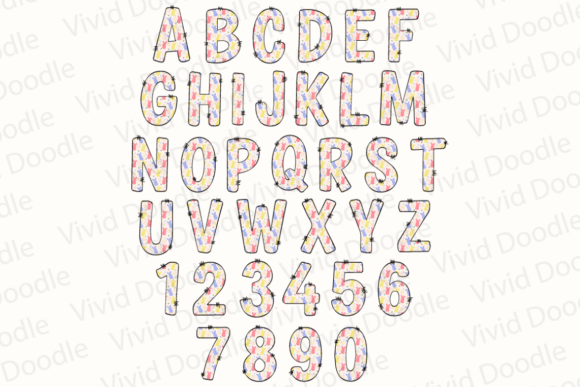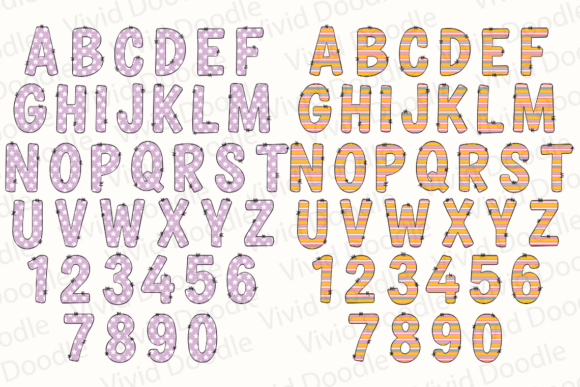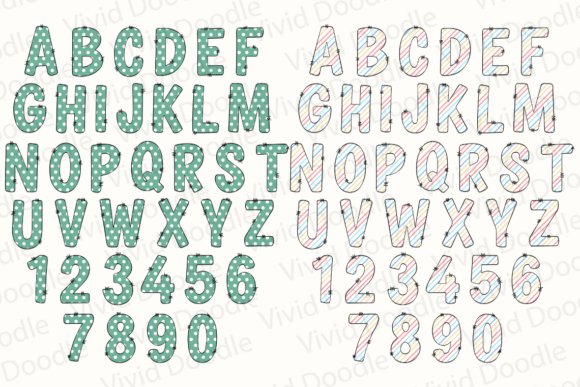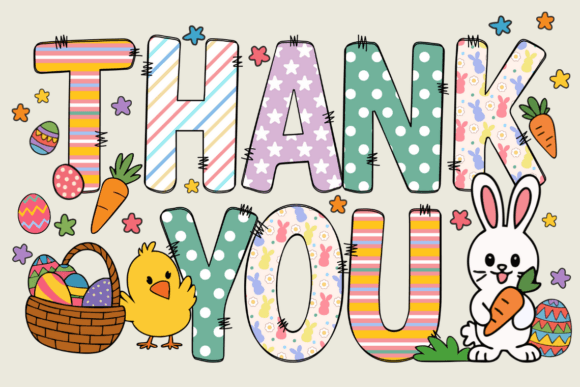
Hop into the Season with Bunny Easter Font
I’ll never forget the time I was working on an Easter-themed project for a client, and I just couldn’t find the right font to capture the playful, festive spirit of the holiday. I scoured the internet, tried out dozens of fonts, but nothing seemed quite right. That was until I stumbled upon Bunny Easter Font. It’s been a game-changer for my holiday designs ever since! 🎉
A Delightful Addition to Your Easter Designs
Bunny Easter Font is an adorable and festive typeface that brings the charm of spring and Easter to life. With its playful and whimsical style, this font is perfect for adding a delightful touch to all your seasonal designs. Whether you’re working on Easter-themed projects such as holiday cards, party invitations, festive posters, or DIY crafts, this font is sure to impress.
What I Love About Bunny Easter Font
• ✨ Playful and whimsical design that’s perfect for Easter-themed projects
• ✅ Adorable bunny-inspired details that capture the joy of the season
• 📚 OpenType features, glyphs, and stylistic alternates for added creativity
While Bunny Easter Font is an amazing addition to any Easter design, there are a few things to keep in mind:
• ⚠️ This font is a color font (Opentype-SVG), which may require some extra setup in certain design software.
The Story Behind Bunny Easter Font
Bunny Easter Font was designed by a talented font designer who wanted to capture the joy and playfulness of the Easter season. With inspiration from adorable bunnies, colorful eggs, and spring flowers, this font is the perfect way to add a touch of Easter magic to your designs. The designer poured their heart and soul into creating a font that’s both fun and functional, and it shows in every detail.